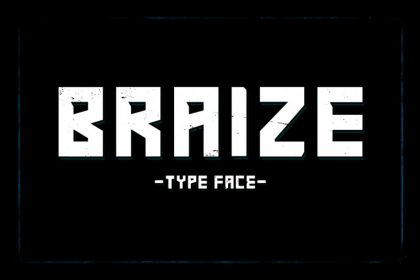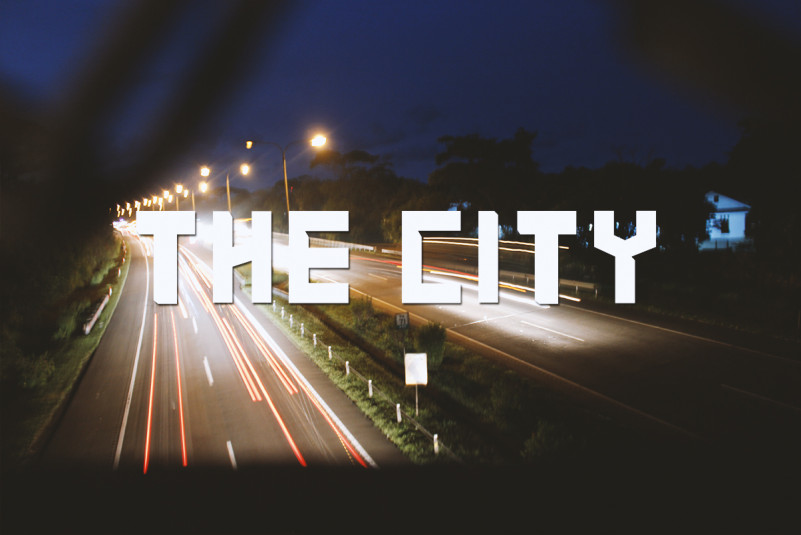
Braize Typeface
Braize Typeface – Free Demo
Braize was inspired by a thick rectangular shape with slightly sharp pieces. Braize is suitable for letters on soccer shirts, advertises on billboards, band names, posters, book covers, packaging products, etc.